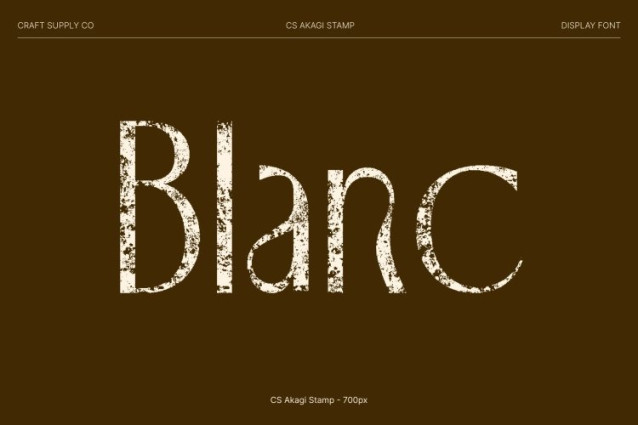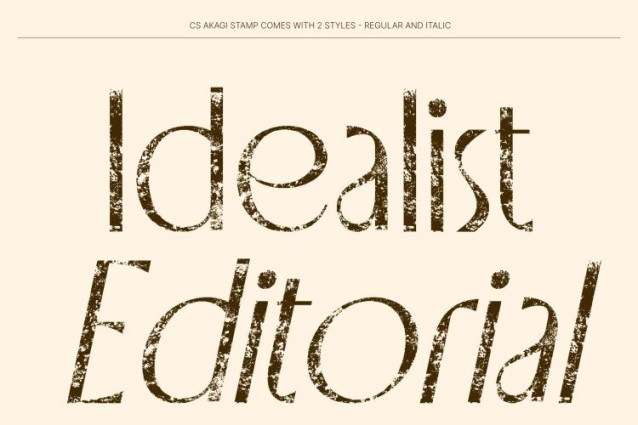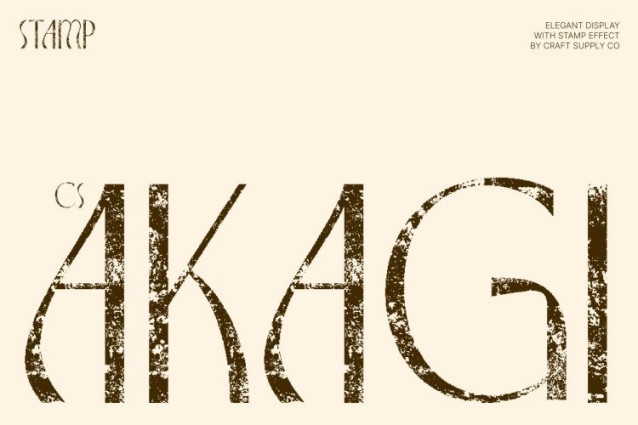
CS Akagi Stamp Font
CS Akagi Stamp Font This is an elegant sans serif font crafted with refined curves and a graceful structure that conveys a high-end, sophisticated presence. Influenced by the organic beauty of Art Nouveau, this typeface blends flowing movement with clean, modern construction. The subtle stamp texture enhances its artistic appeal, adding character and depth without disrupting its refined clarity.
Organic Curves with Quirky Elegance
The defining feature of this font lies in its fluid curves and natural rhythm. Each letterform flows smoothly, creating a soft yet confident visual movement. Gentle quirks and nuanced details bring personality and charm, while the stamped effect introduces a handcrafted feel that makes the font expressive, warm, and visually distinctive.
Classic and Modern Nuances in Perfect Harmony
Balancing classic elegance with modern sensibilities, this font merges a clean sans serif foundation with decorative influences inspired by Art Nouveau design. This harmonious fusion results in a typeface that feels timeless yet contemporary ideal for projects that demand sophistication, creativity, and stylistic balance.
Perfect for Editorial, Fashion, and Premium Branding
Designed for refined creative applications, this font is perfectly suited for editorial layouts, advanced book typography, fashion branding, packaging, and luxury visual identities. Its elegant structure ensures comfortable readability, while its artistic character and textured finish elevate headlines, logos, and premium design compositions.